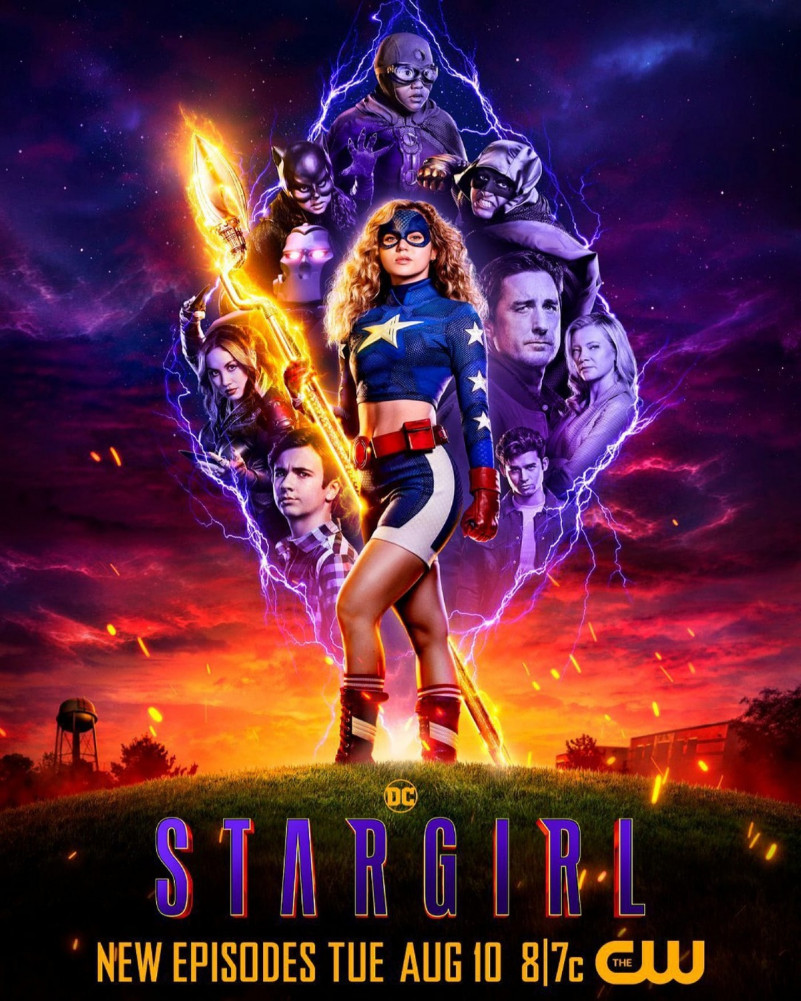
Stargirl Film Font
DC’s Stargirl, or simply Stargirl, is an American superhero television series created by Geoff Johns that premiered on streaming service DC Universe. It is based on the DC Comics superhero Courtney Whitmore created by Johns and Lee Moder. The series follows high school student Courtney Whitmore who discovers the cosmic staff and becomes the inspiration for a new generation of superheroes who become the Justice Society of America.
“Justice Stargirl” is the font used in Stargirl poster.